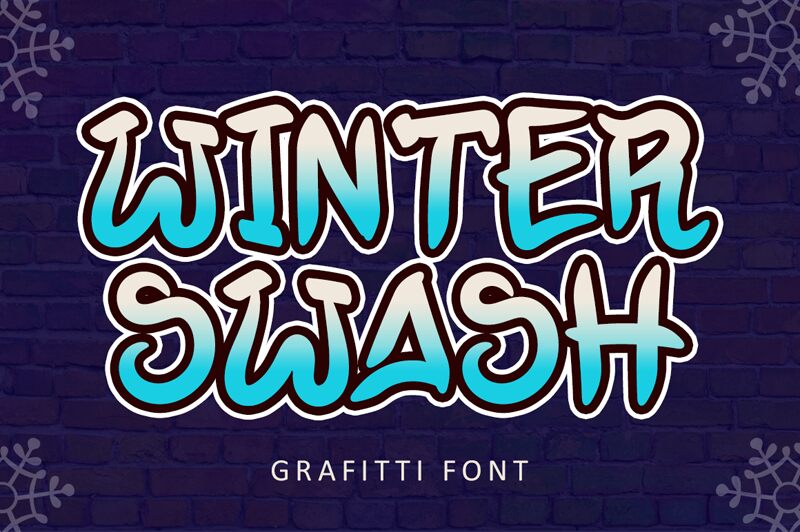
Winter Swash is a bold and edgy graffiti font designed by the talented Illushvara. This eye-catching typeface features swashes and curves that give your text movement and energy. The Winter Swash font is perfect for projects that require an artistic touch, such as album covers, posters, and streetwear branding. Its semi-bold font style makes it versatile enough to use in both large headlines and smaller body text. Whether you're designing for an underground music festival or a trendy clothing line, Winter Swash adds just the right amount of rebellious attitude to your project.
Winter Swash